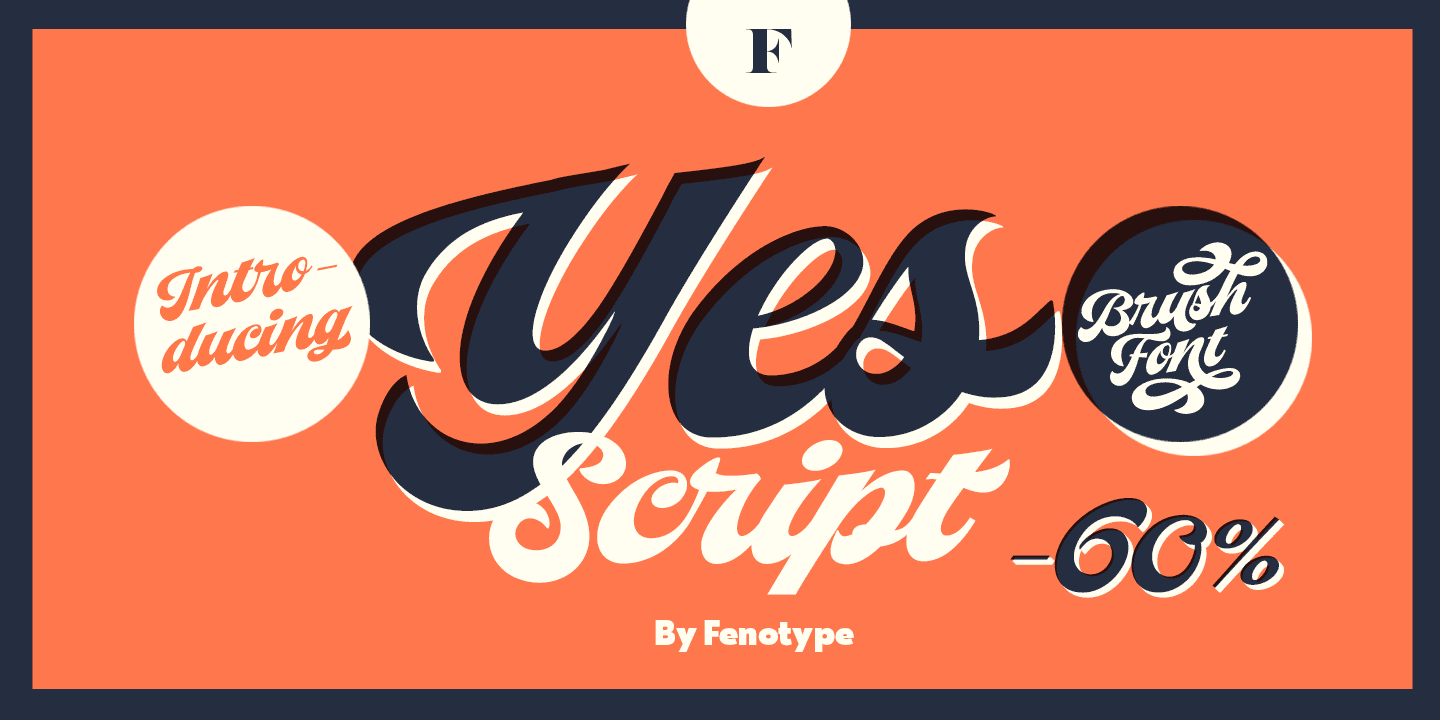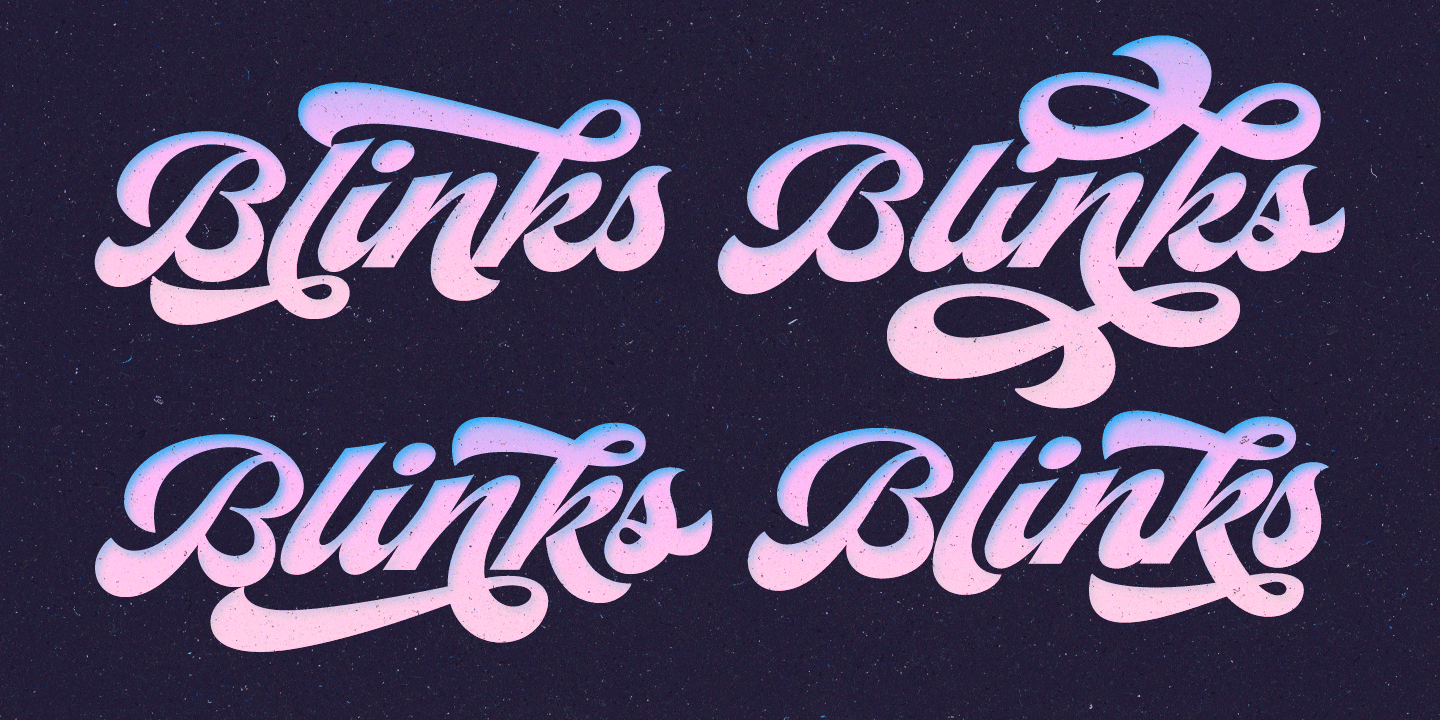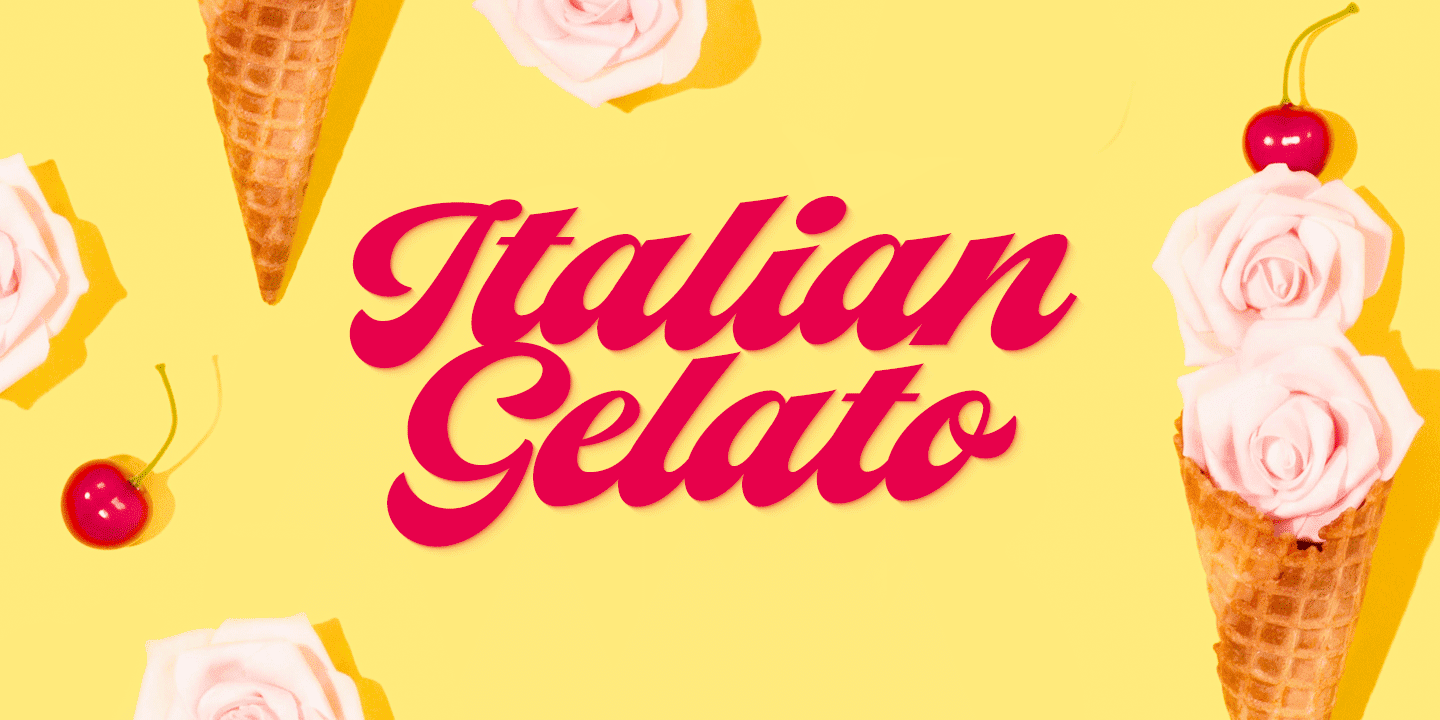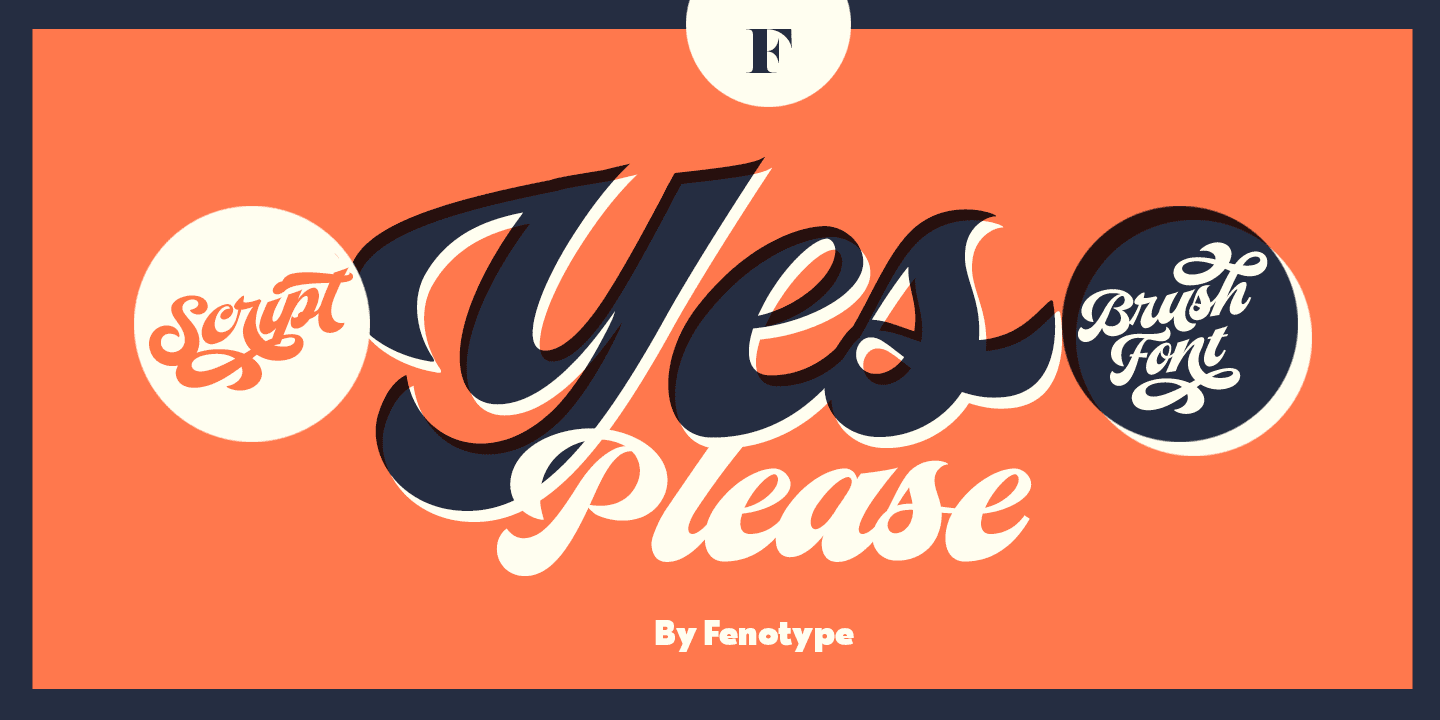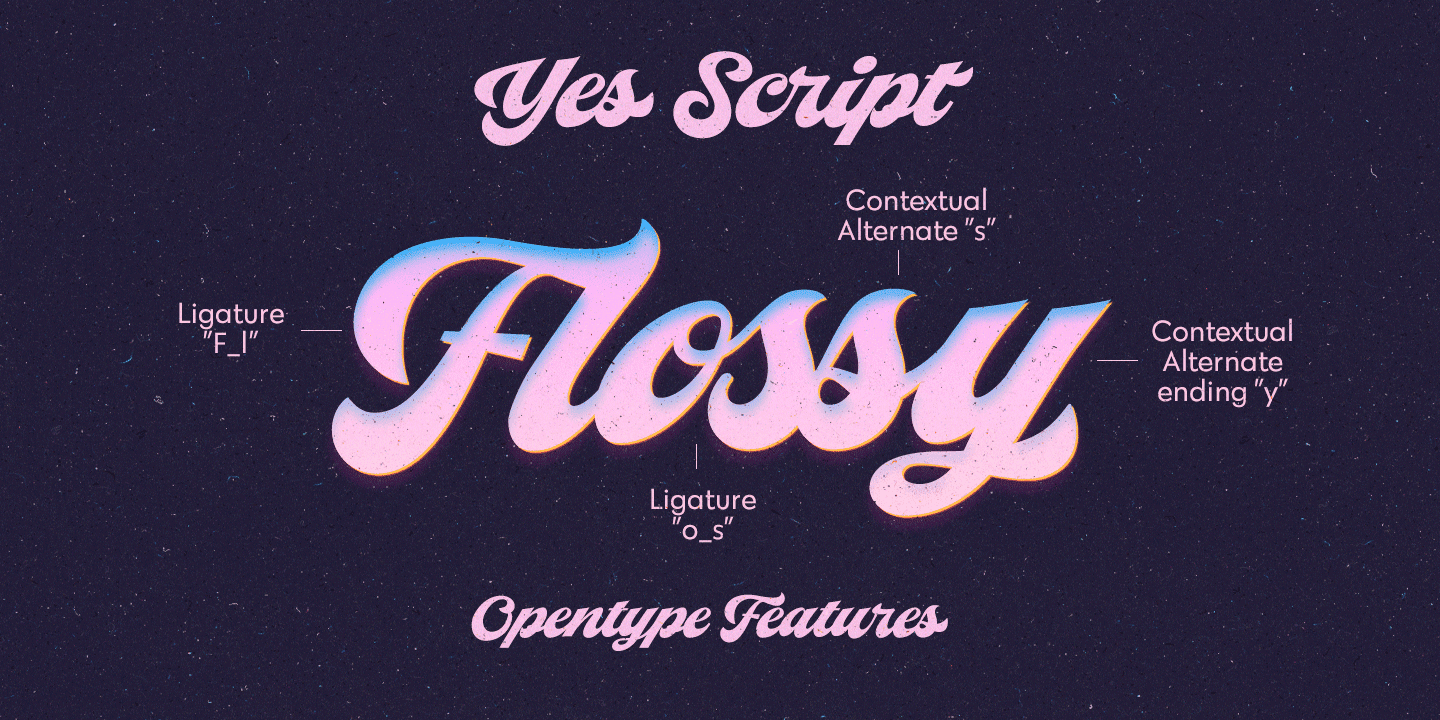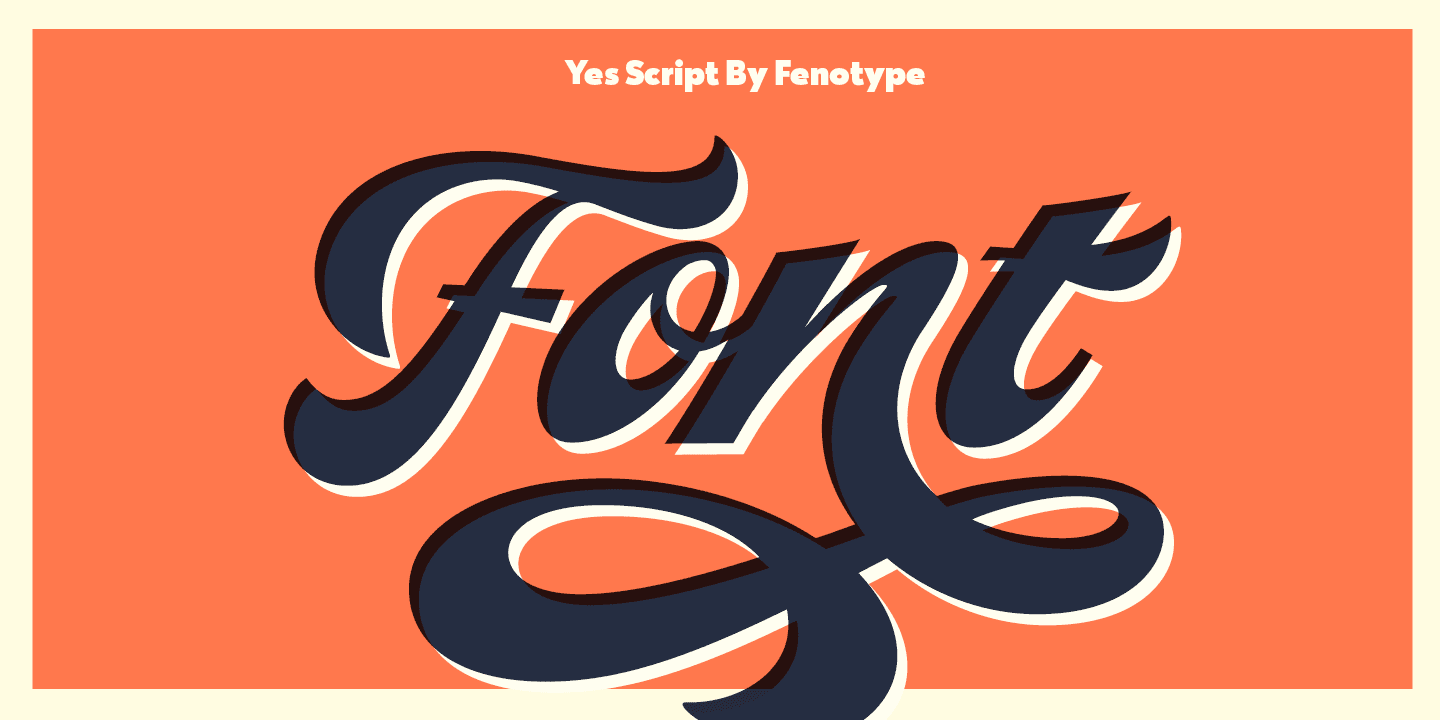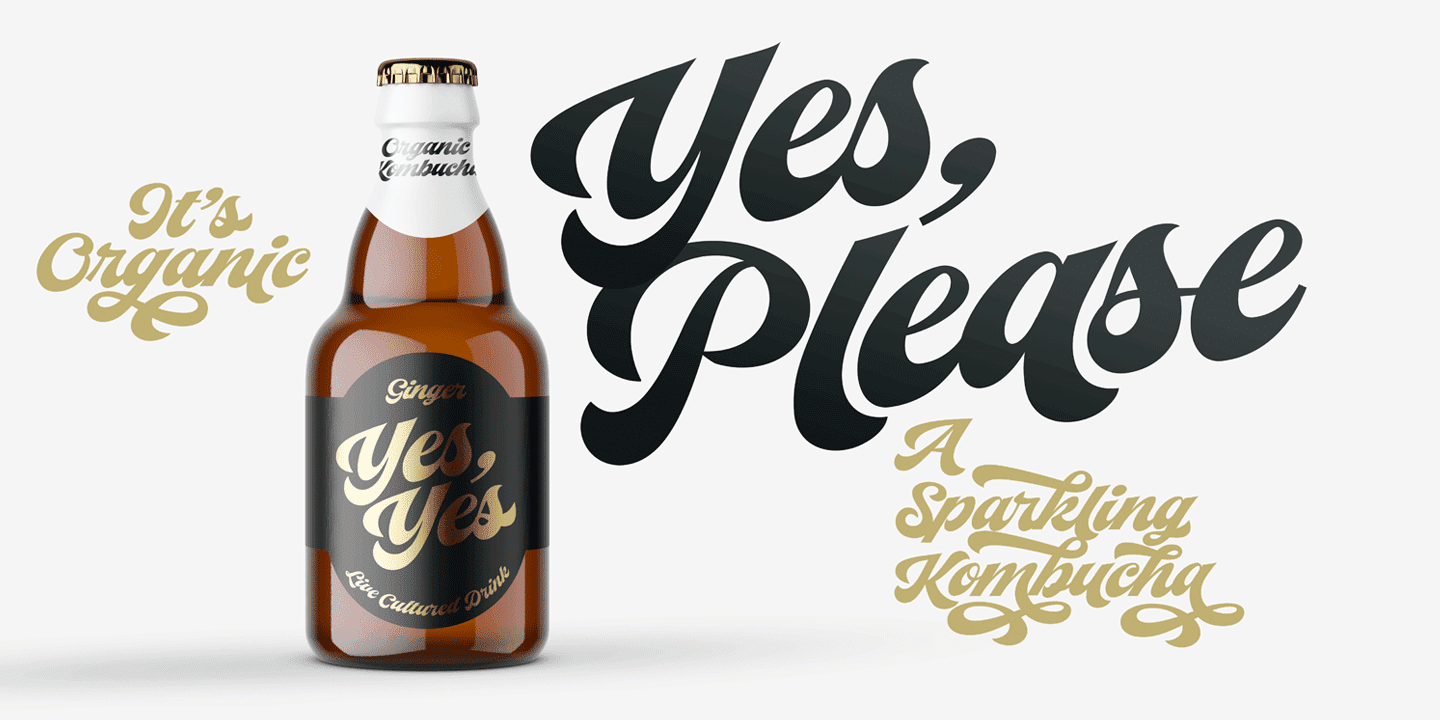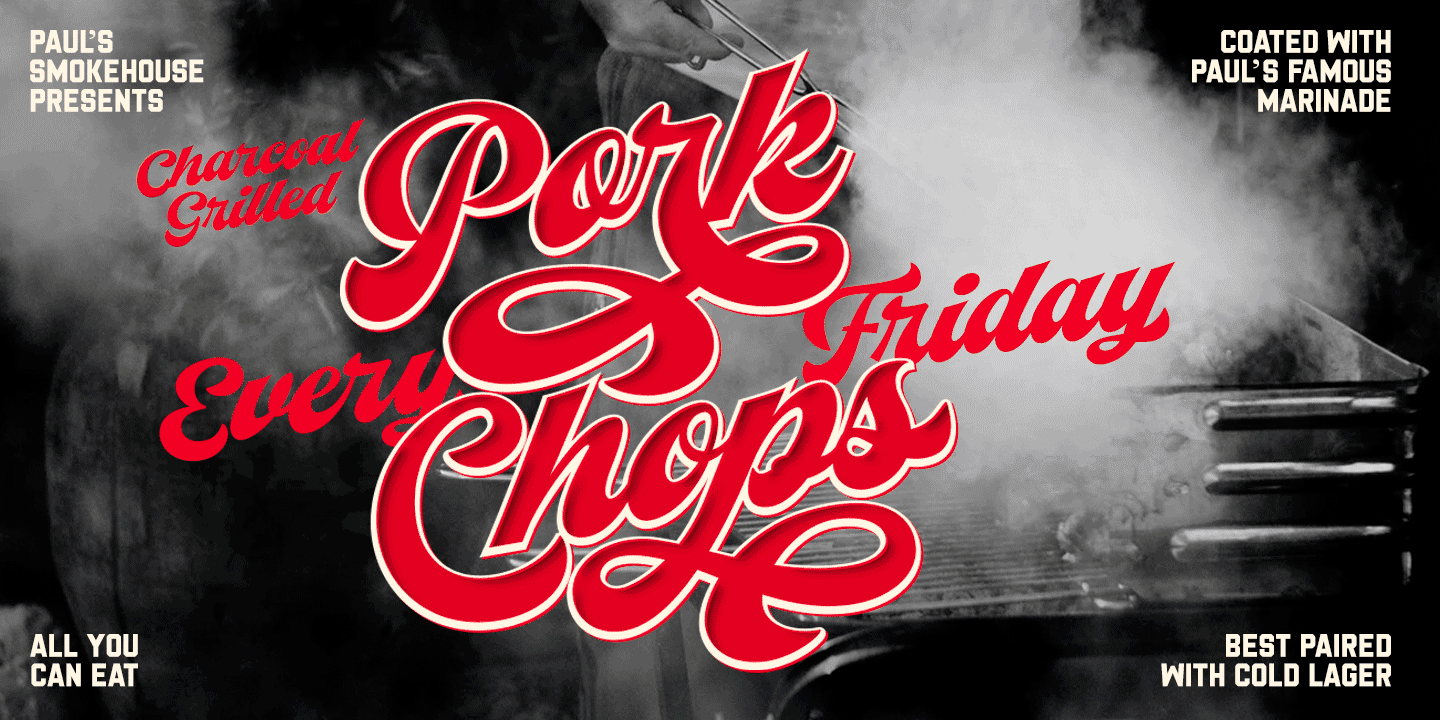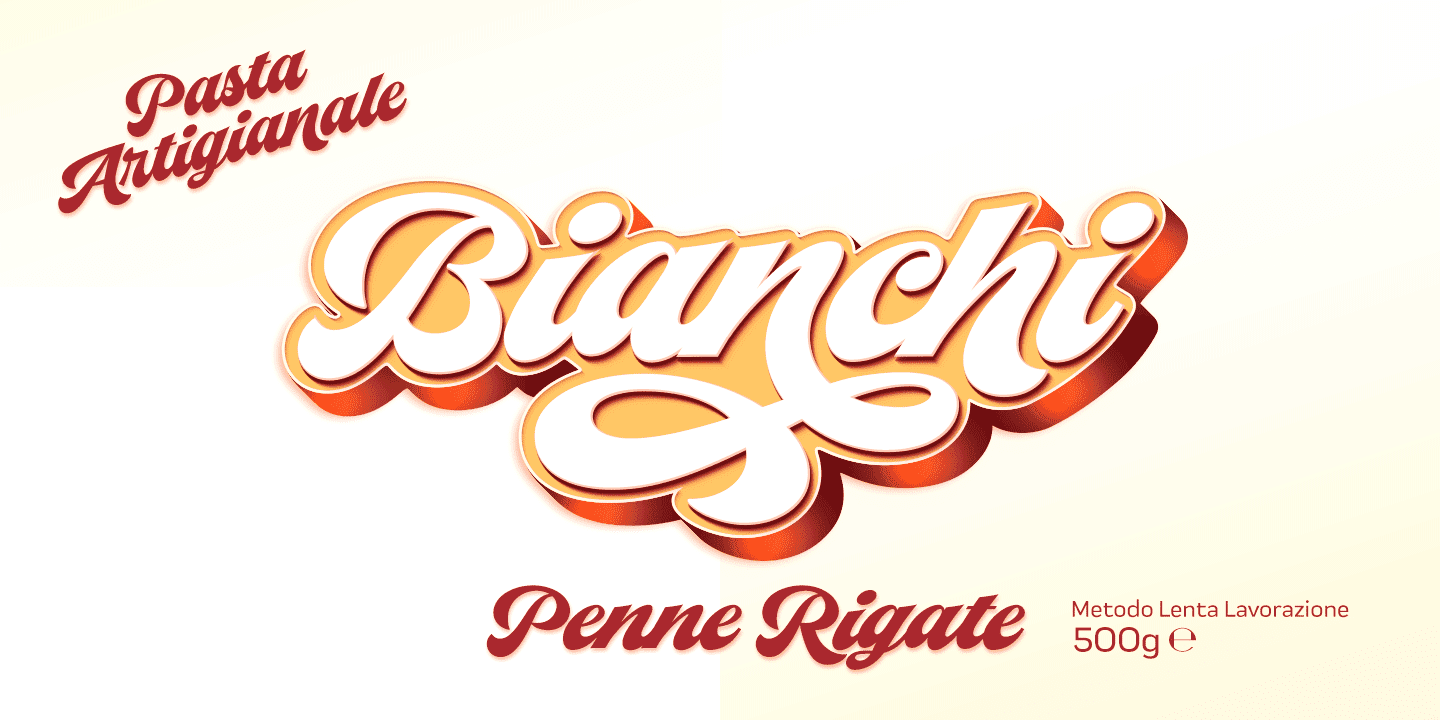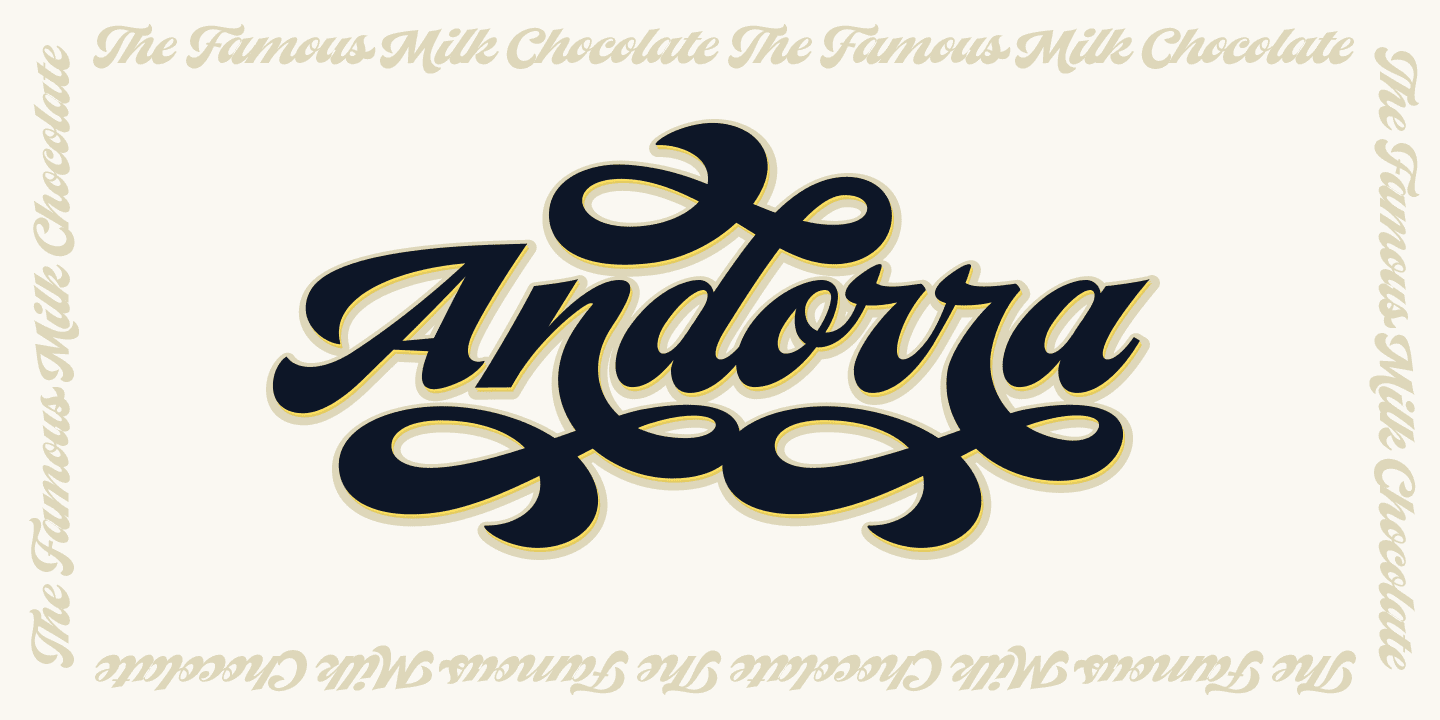
Yes Script says Yes! Yes Script is a bold connected brush script inspired by the typography of the late 60s and 70s. Yes Script is not an anachronistic vintage type -due to it’s clean features and straight edges it’s more of a contemporary design suitable for branding, packaging, magazines and so on from digital to print.
Yes Script is equipped with Contextual Alternates and Standard Ligatures that are automatically on and help to keep the flow of the font natural and connections between letters smooth. In addition there’s Swash, Titling Alternates and two packs of Stylistic Sets. Access the alternates in any OpenType savvy software or seek the Character Palette for even more alternates. Stylistic Set 3 is packed with 24 swooshes and ornaments set in letters a-x.